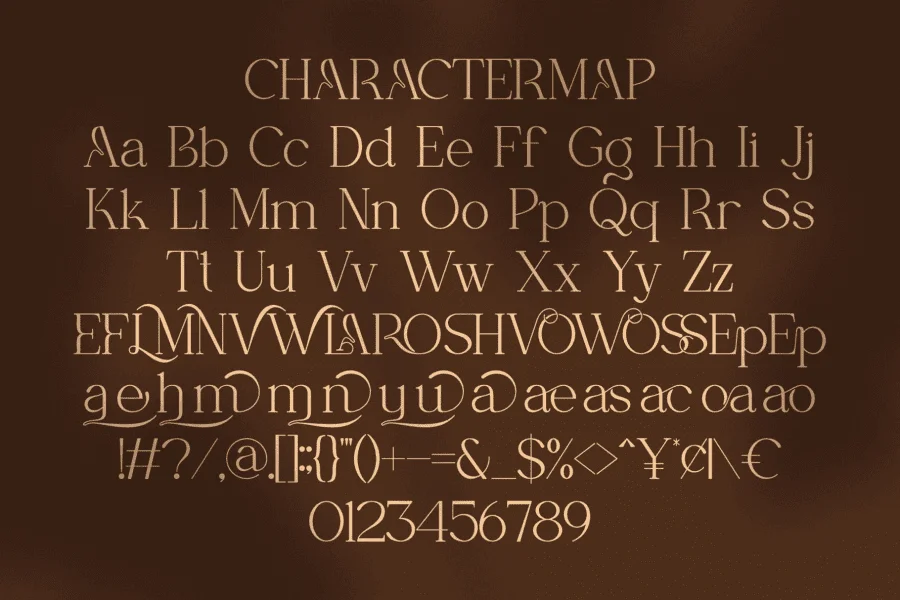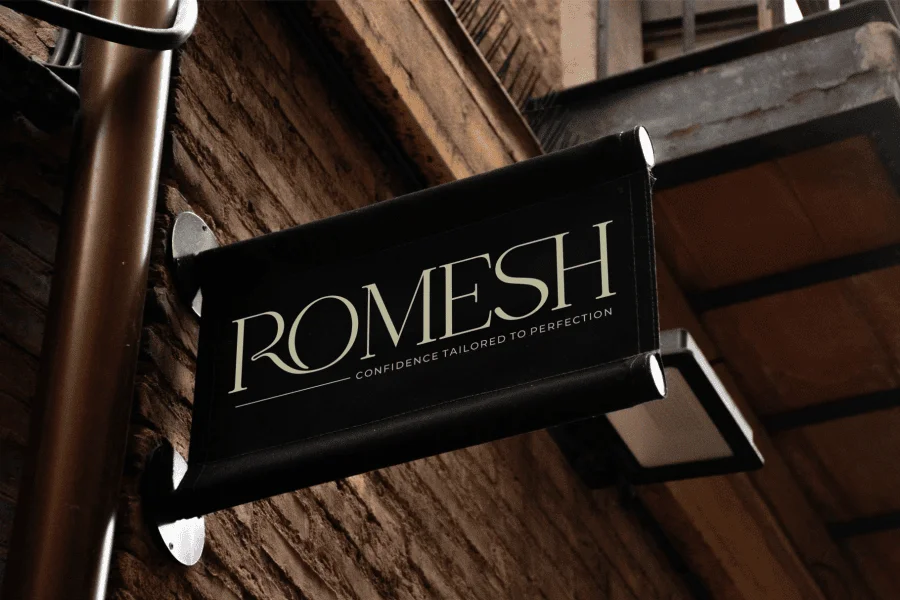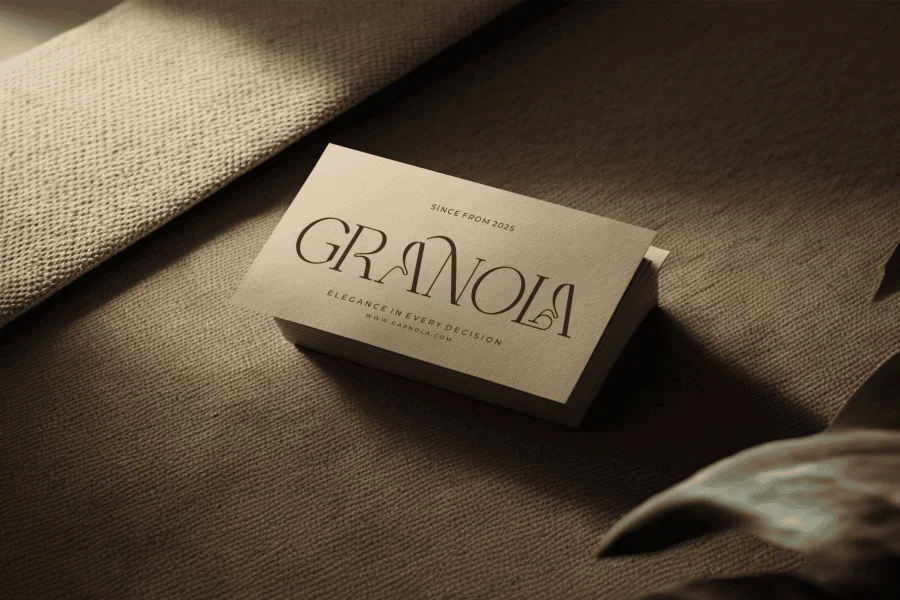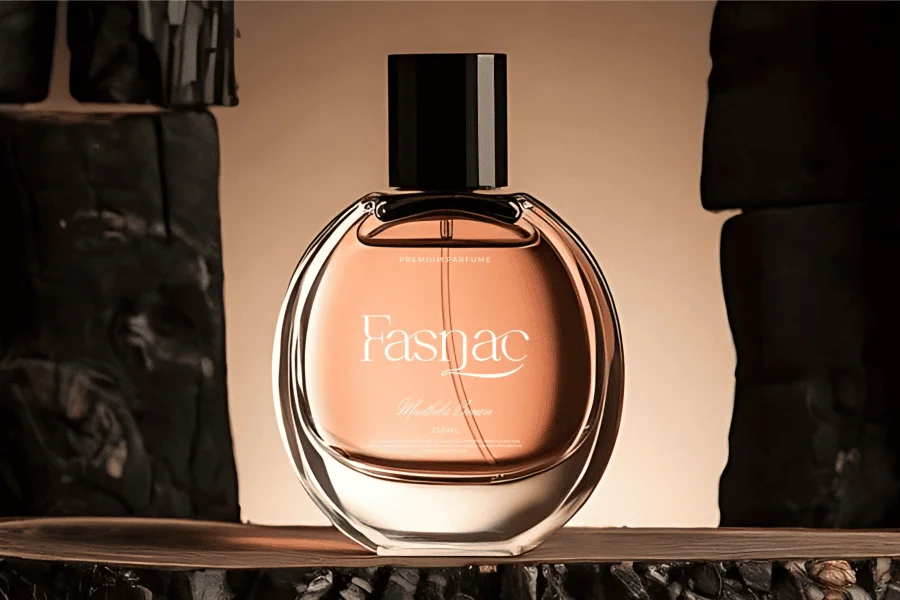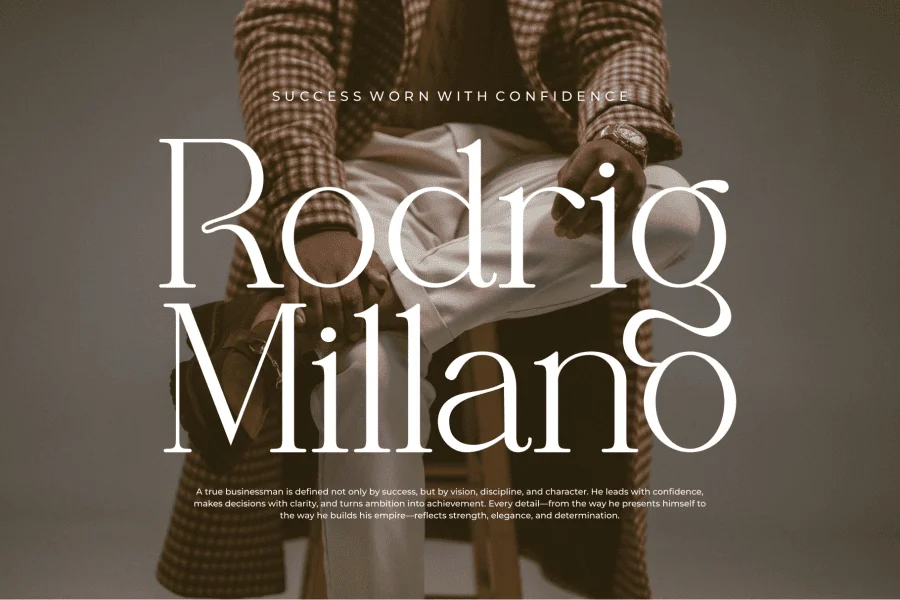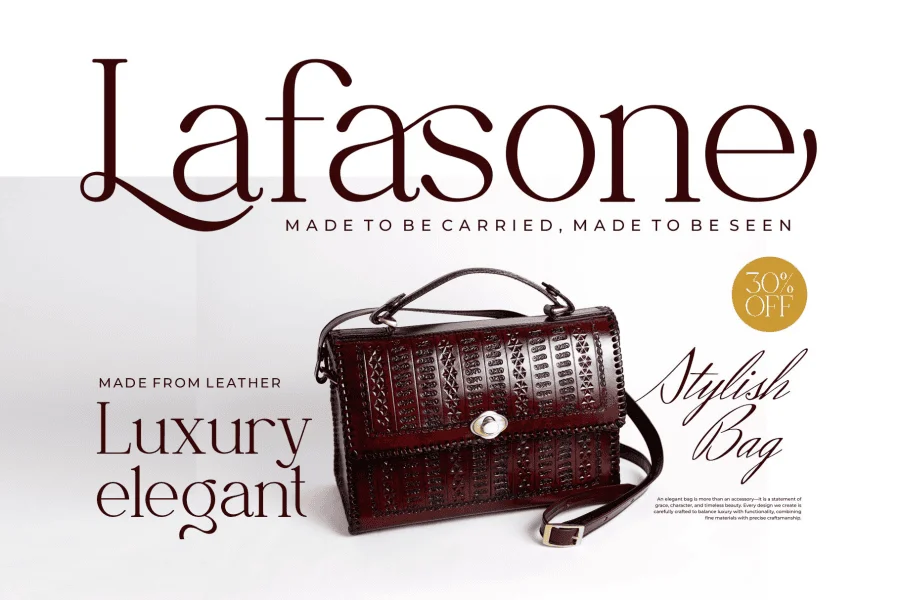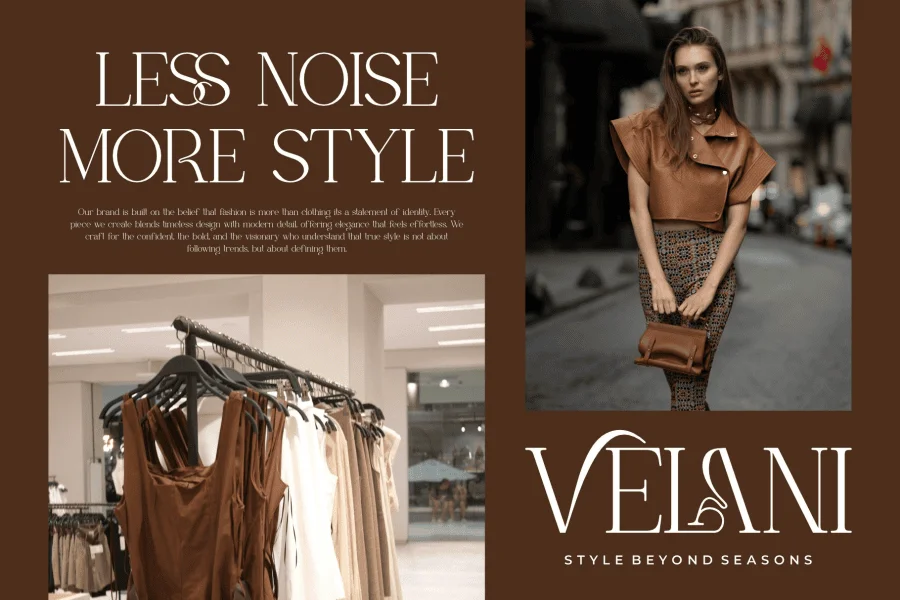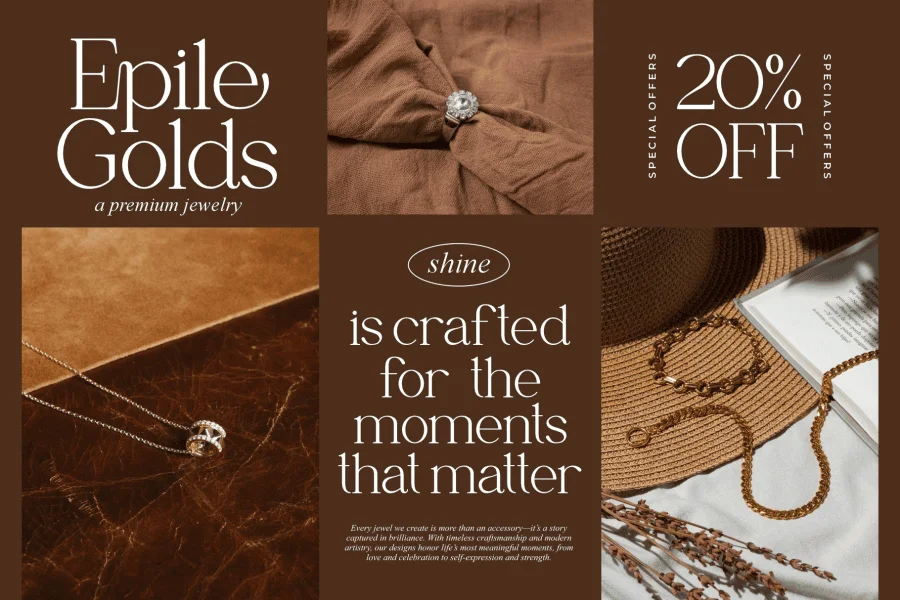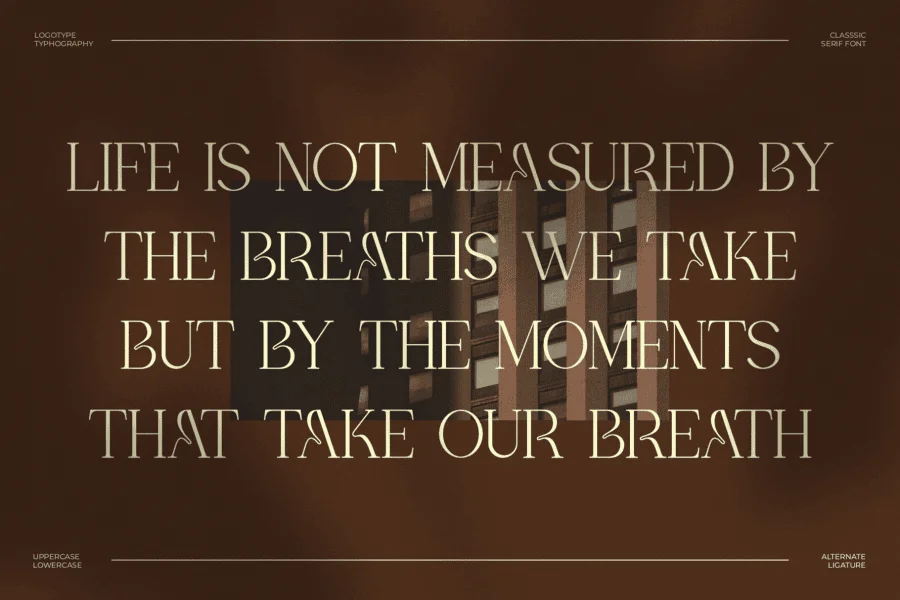
Kinasha is an elegant and stylish serif display typeface that blends classic letterforms with fluid, calligraphic flourishes. It is defined by its high-contrast stroke weights, featuring thin hairlines paired with sturdy, structured stems. The overall rhythm of the typeface is graceful and expressive, characterized by sweeping, elongated terminals and decorative ligatures that loop and curve with a sense of haute couture sophistication. This interplay of sharp, formal serifs and dramatic, organic swashes gives the typeface a luxurious, bespoke quality.
This typeface is perfectly suited for high-end fashion branding, editorial layouts, and luxury packaging. Its expressive, decorative nature makes it an excellent choice for prominent mastheads, perfume bottle labeling, boutique storefront signage, and sophisticated identity systems for premium goods. Whether utilized for a minimalist cosmetic brand or a bold lifestyle magazine cover, it lends an air of curated, timeless style to any design.